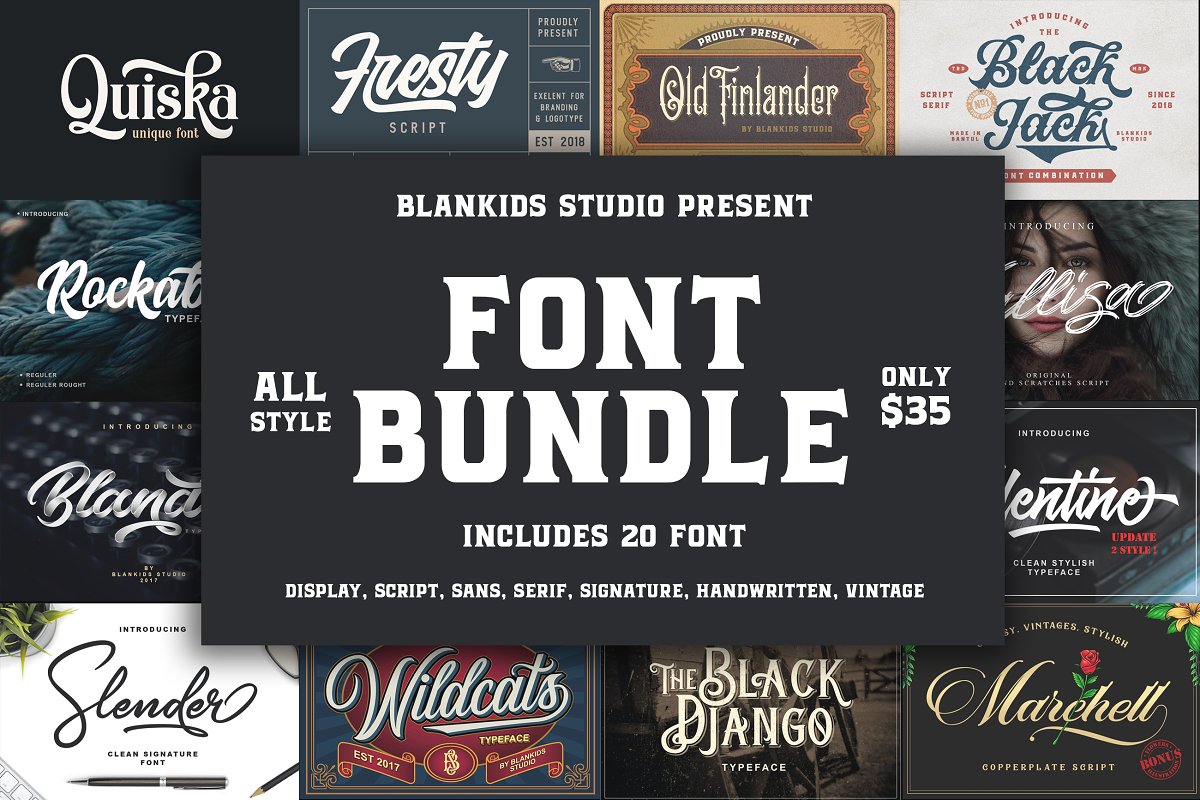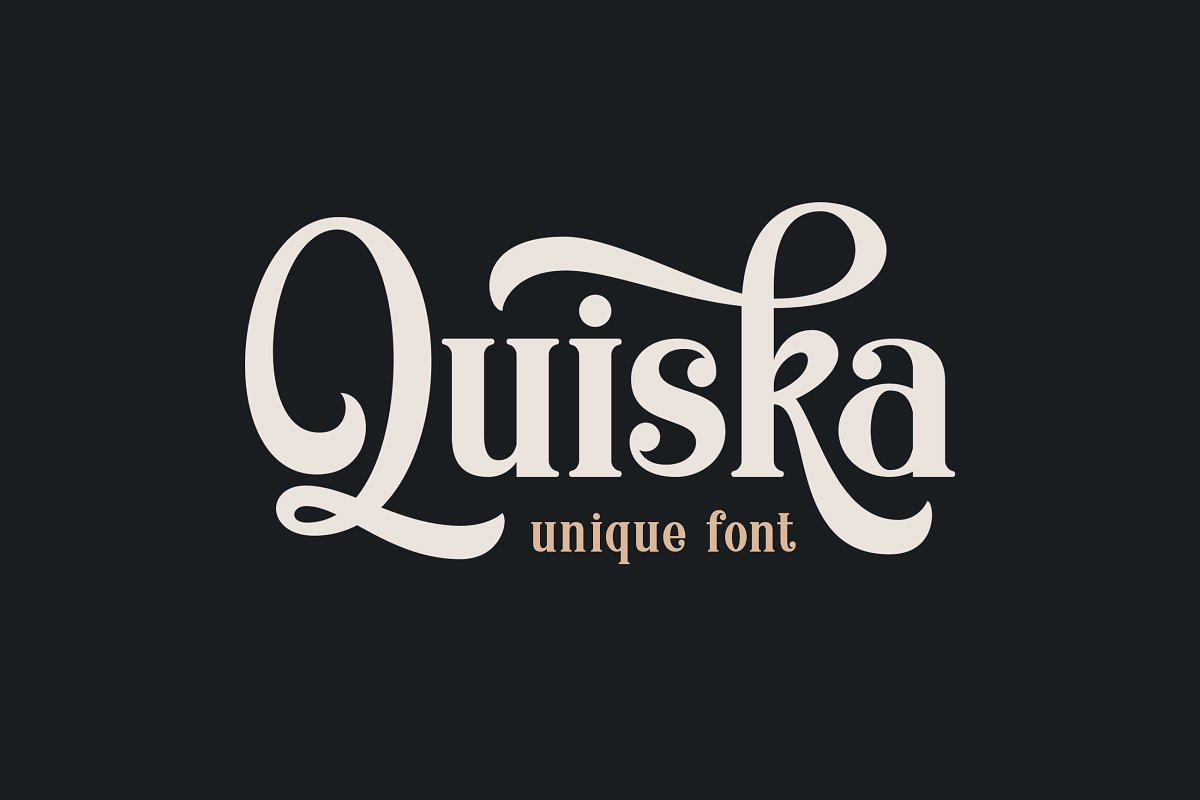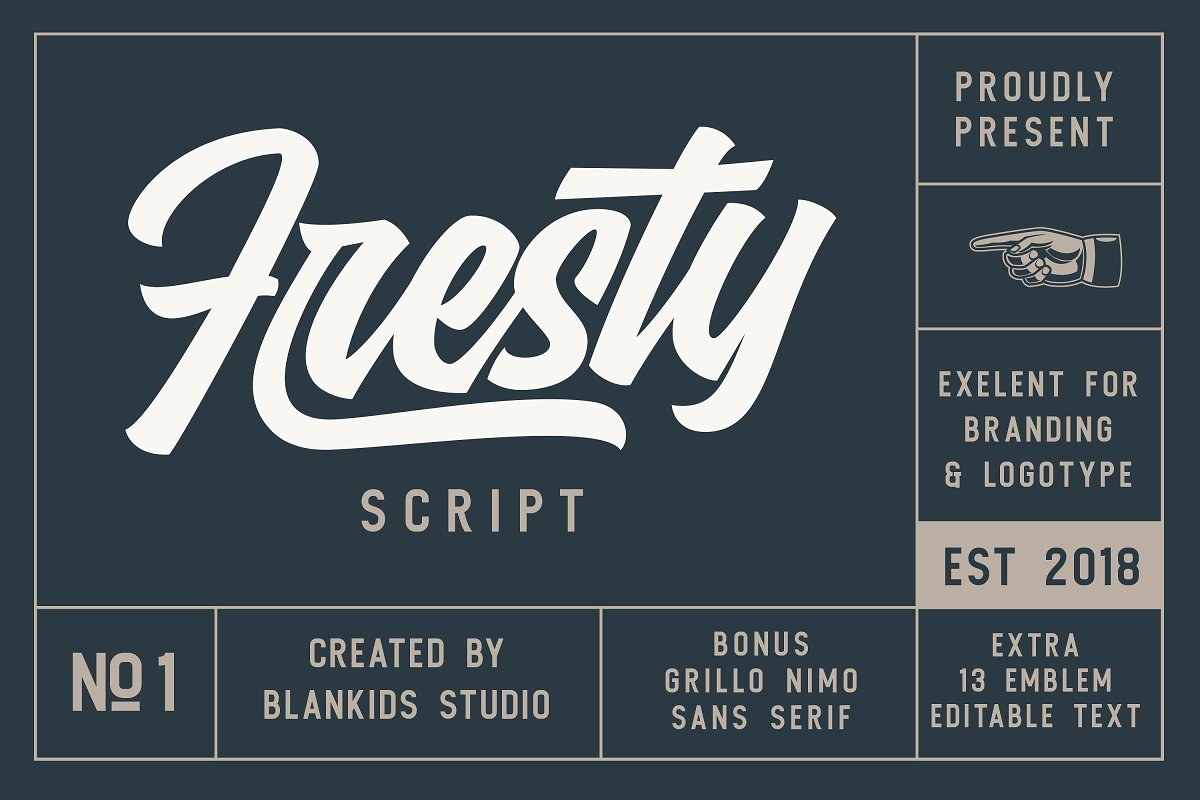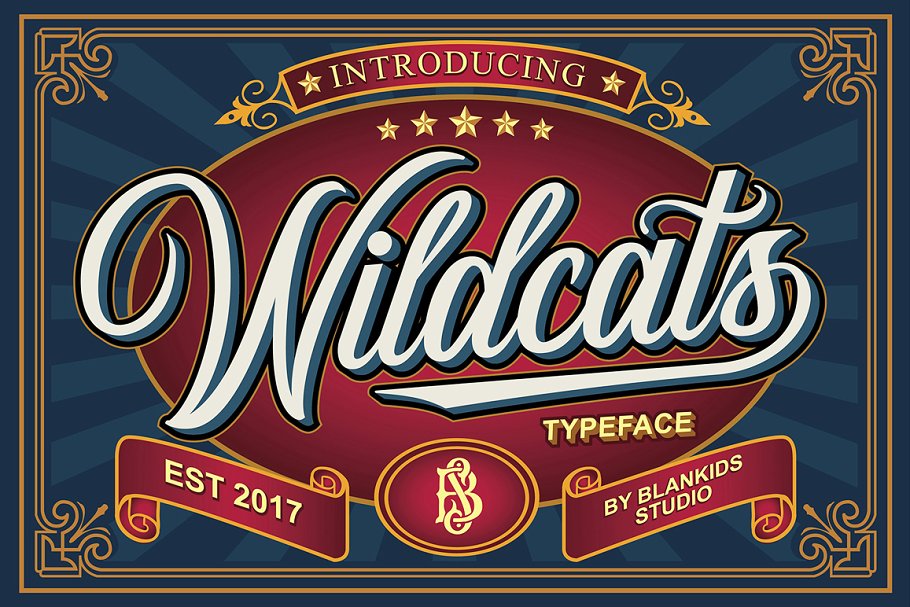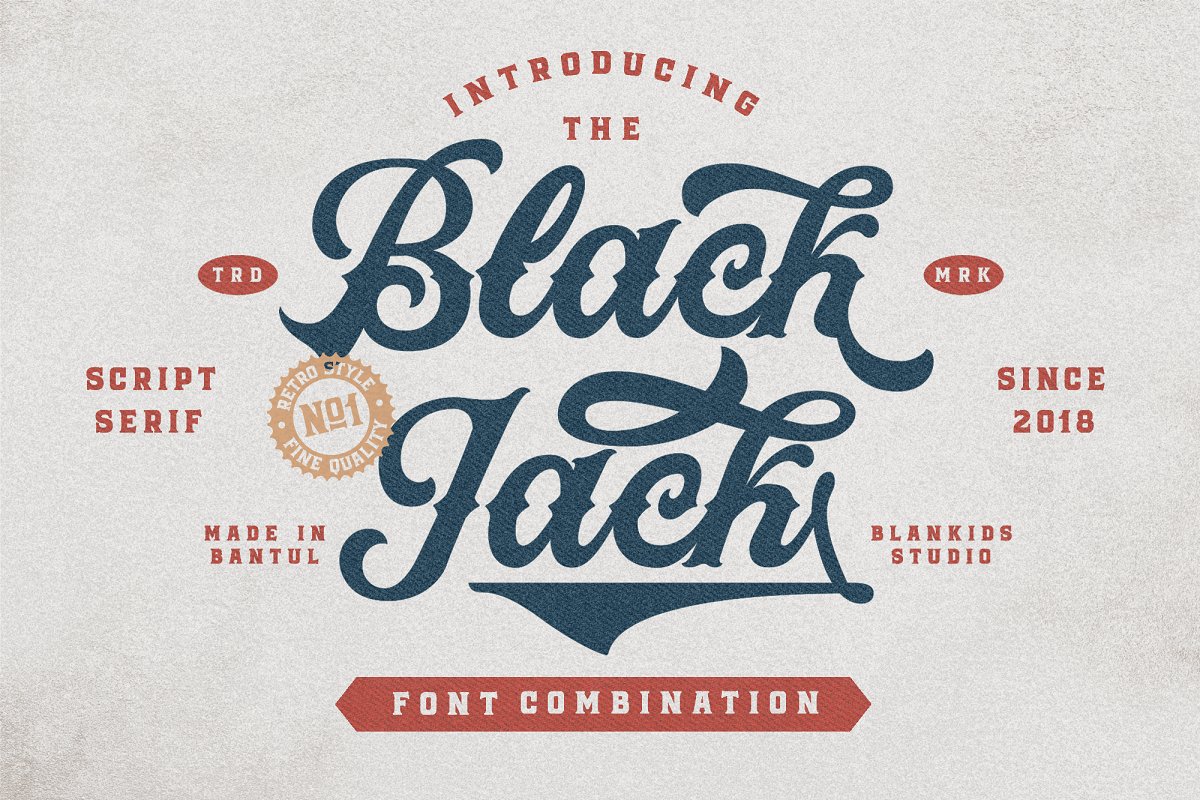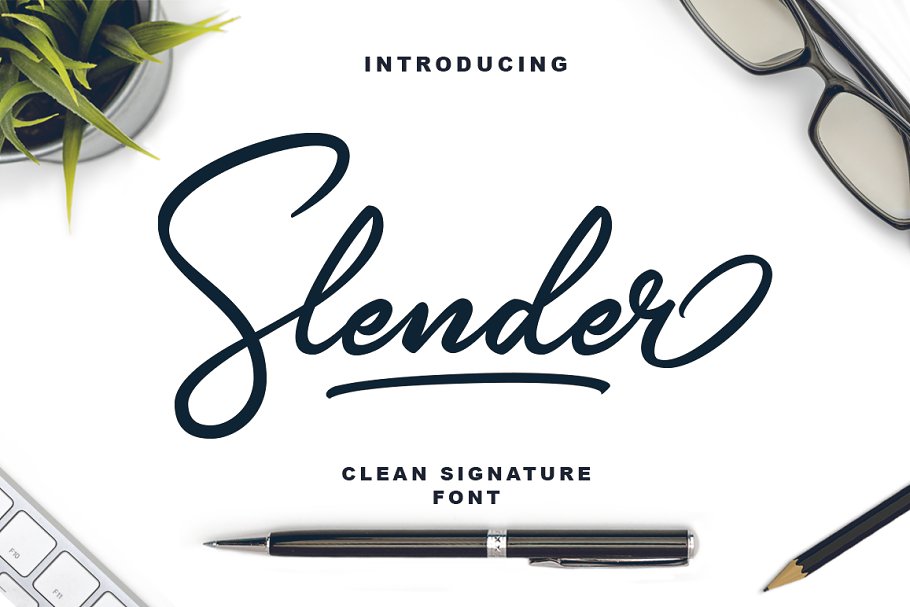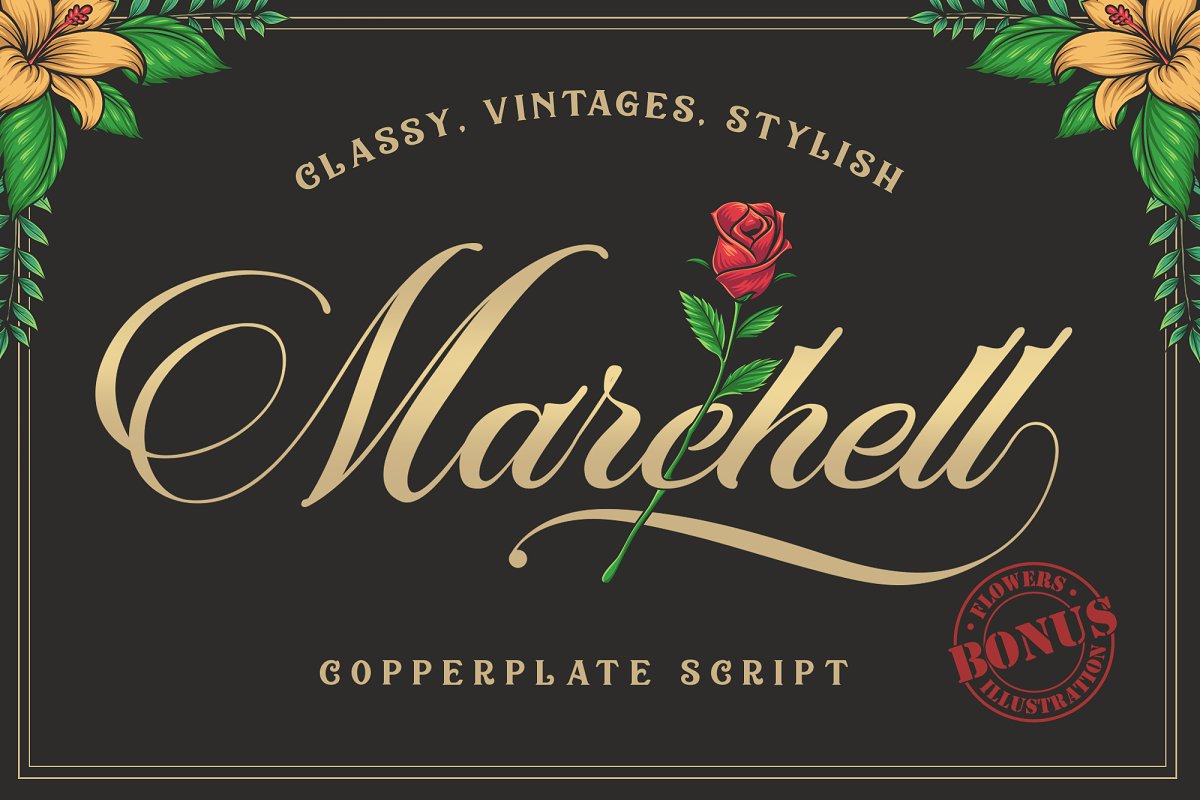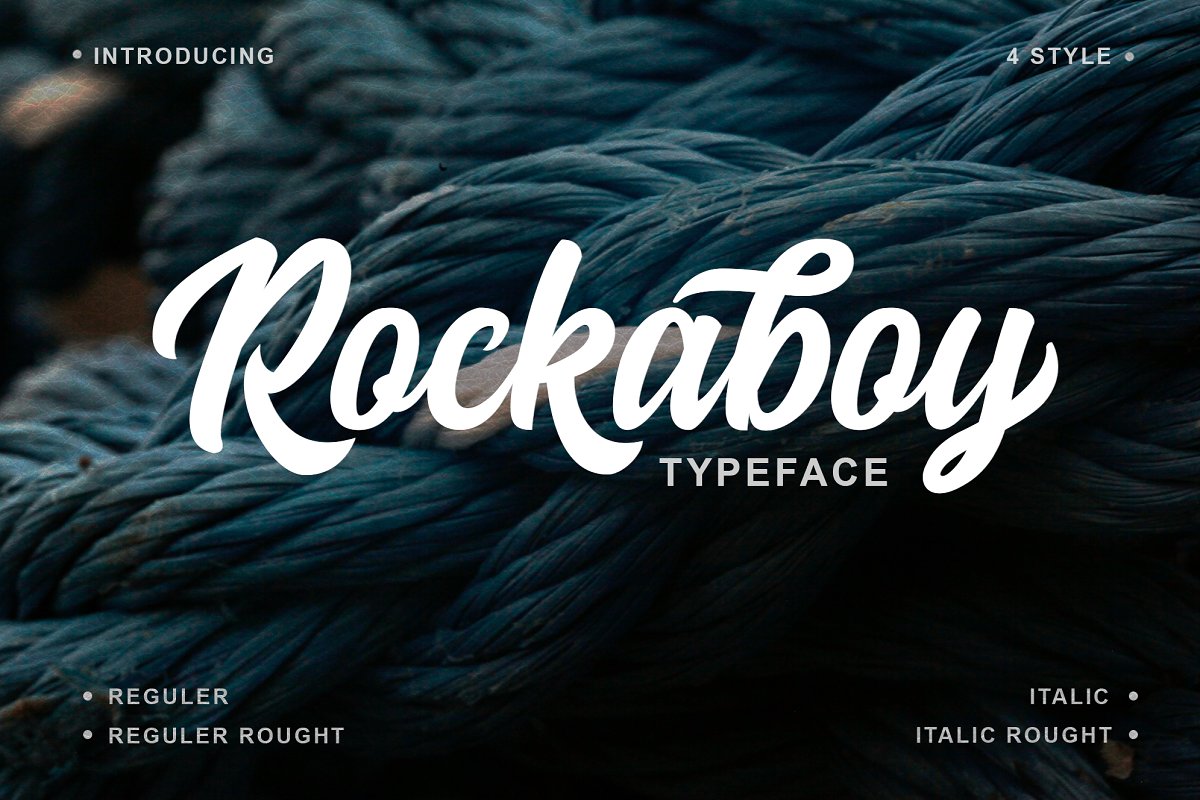
About the Blankids Bundle Font
BLANKIDS STUDIO PRESENT FONT BUNDLE (20 FONT)Hey guys, save your money and get all my font from my store only $35!!This bundle includes 20 fonts with different styles (script, serif, sans, display, modern script, brush script, vintage and display) so you will get different style fonts in one package :), All font support OTF and TTF file, PUA encoded and opentype features